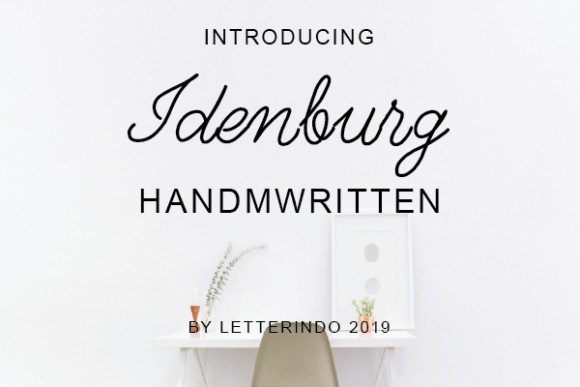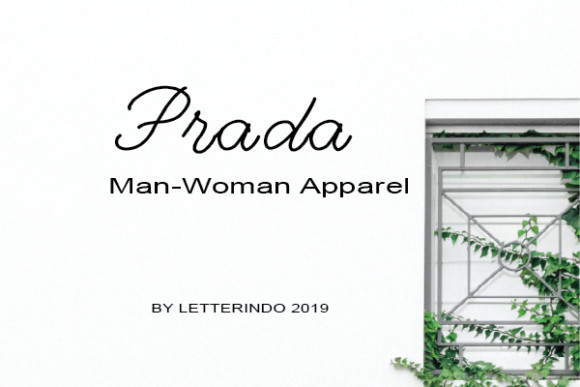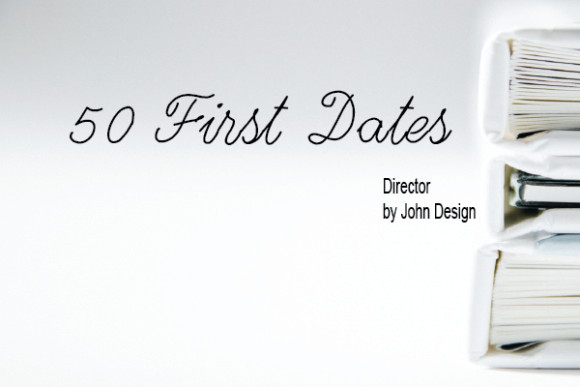
Idenburg Font
Idenburg simplifies elegance into one truly outstanding handwritten font. Whether you’re looking for fonts for Instagram or calligraphy scripts for DIY projects, this font will turn any creative idea into a true piece of art!